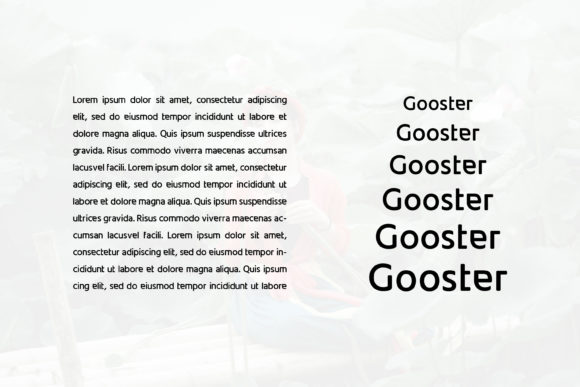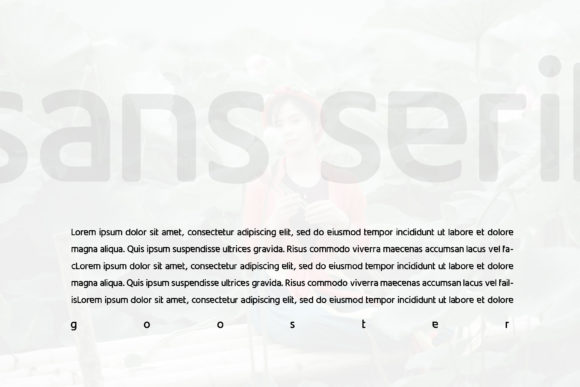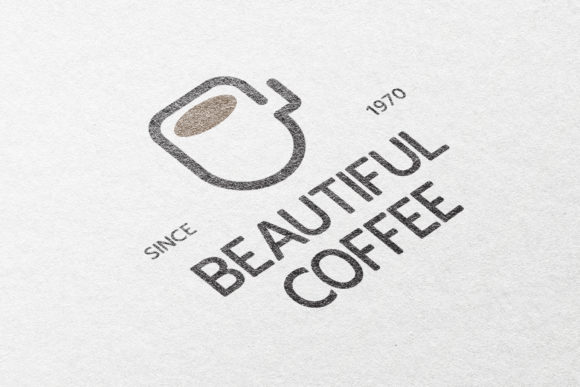
Introduction to Gooster Font
Gooster is a minimal and neat sans serif font.
Key Features of Gooster Font
Why Choose Gooster Font?
Gooster Font offers exceptional quality and versatility, making it a valuable addition to your design toolkit. Whether you’re creating for personal projects or commercial use, Gooster Font delivers professional results.